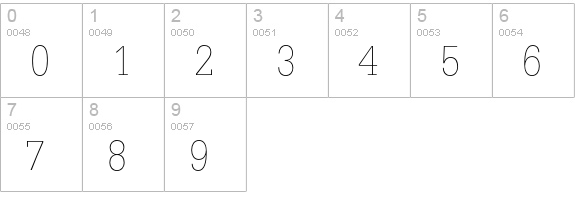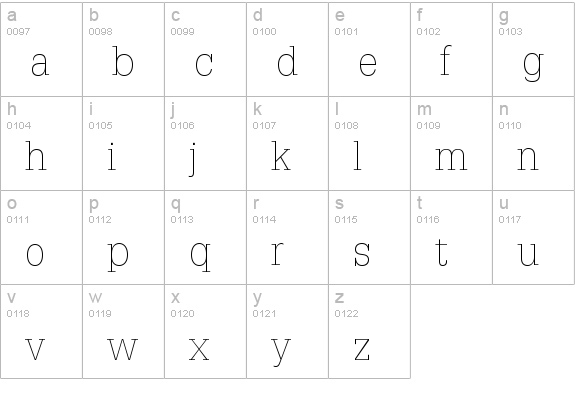
Glypha 35 Thin Font Details
Glypha 35 Thin is a delicate, low-contrast variant in the Glypha typeface family \xE2\x80\x94 well suited to fashion editorial, minimal branding, and high-contrast display.
Glypha 35 Thin font is a sleek and modern typeface that exudes elegance and sophistication. Its thin, delicate strokes give it a refined and minimalist appearance, making it perfect for adding a touch of class to any design project. Whether you are creating a stylish logo, elegant wedding invitations, or a sleek website layout, Glypha 35 Thin font is sure to elevate your design to the next level. The versatility of this font allows it to be used in a variety of contexts, from high-end fashion branding to clean and contemporary editorial layouts. Its timeless and classic design ensures that it will remain a staple in your font collection for years to come. And the best part? Glypha 35 Thin font is available for free download at FontsMarket.com. So you can add this sophisticated typeface to your design arsenal without breaking the bank. Don't miss out on the opportunity to elevate your projects with this stunning font – download Glypha 35 Thin today!